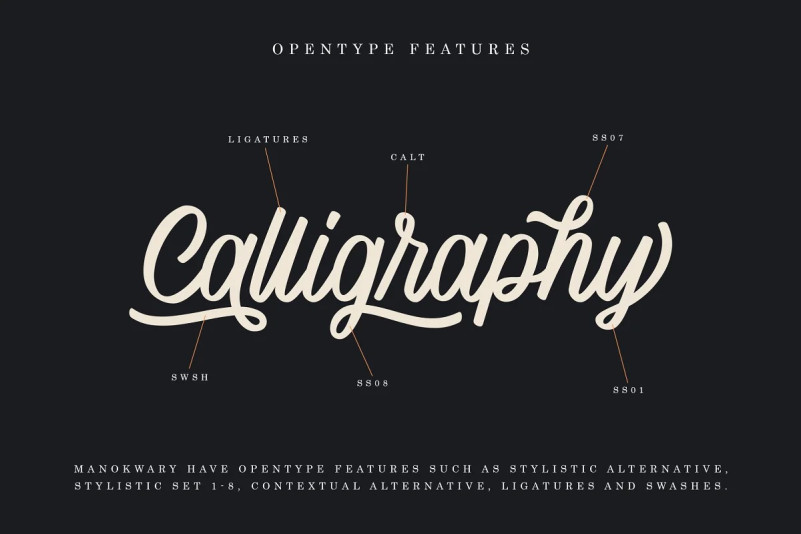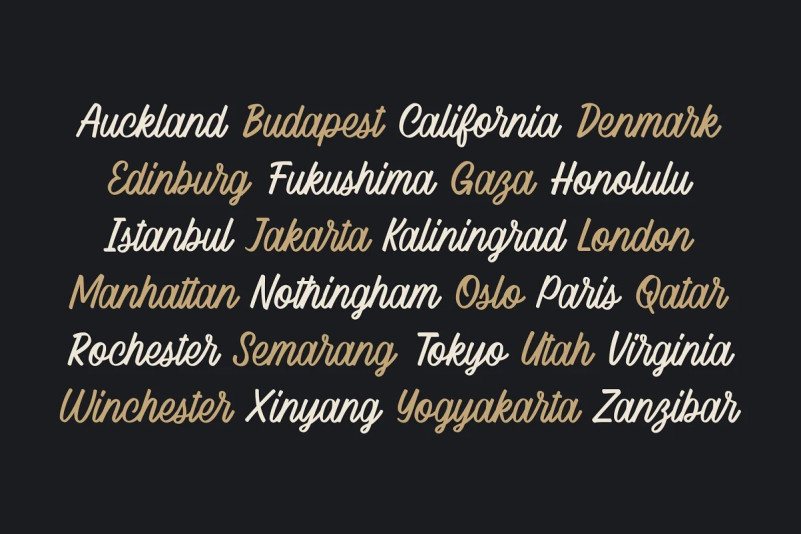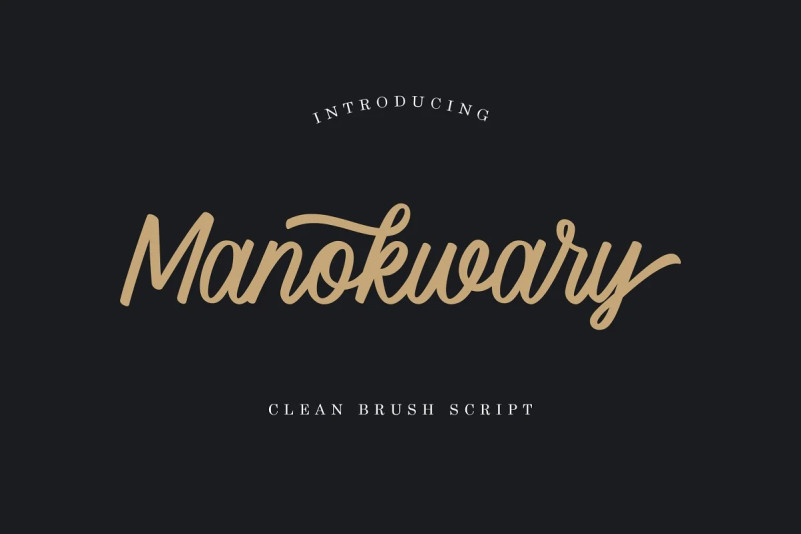
Manokwary Font
Manokwary Script Font is a clean script with opentype feature. Manokwary created from brush pen with basic technique. it’s perfect for a wedding invitations, save the date cards, fine art papery, feminine branding or personal gift cards.
Uppercase & Lowercase
Ligatures : ar er ir or ur ll rr ss th tt
Support for Multilingual Support.